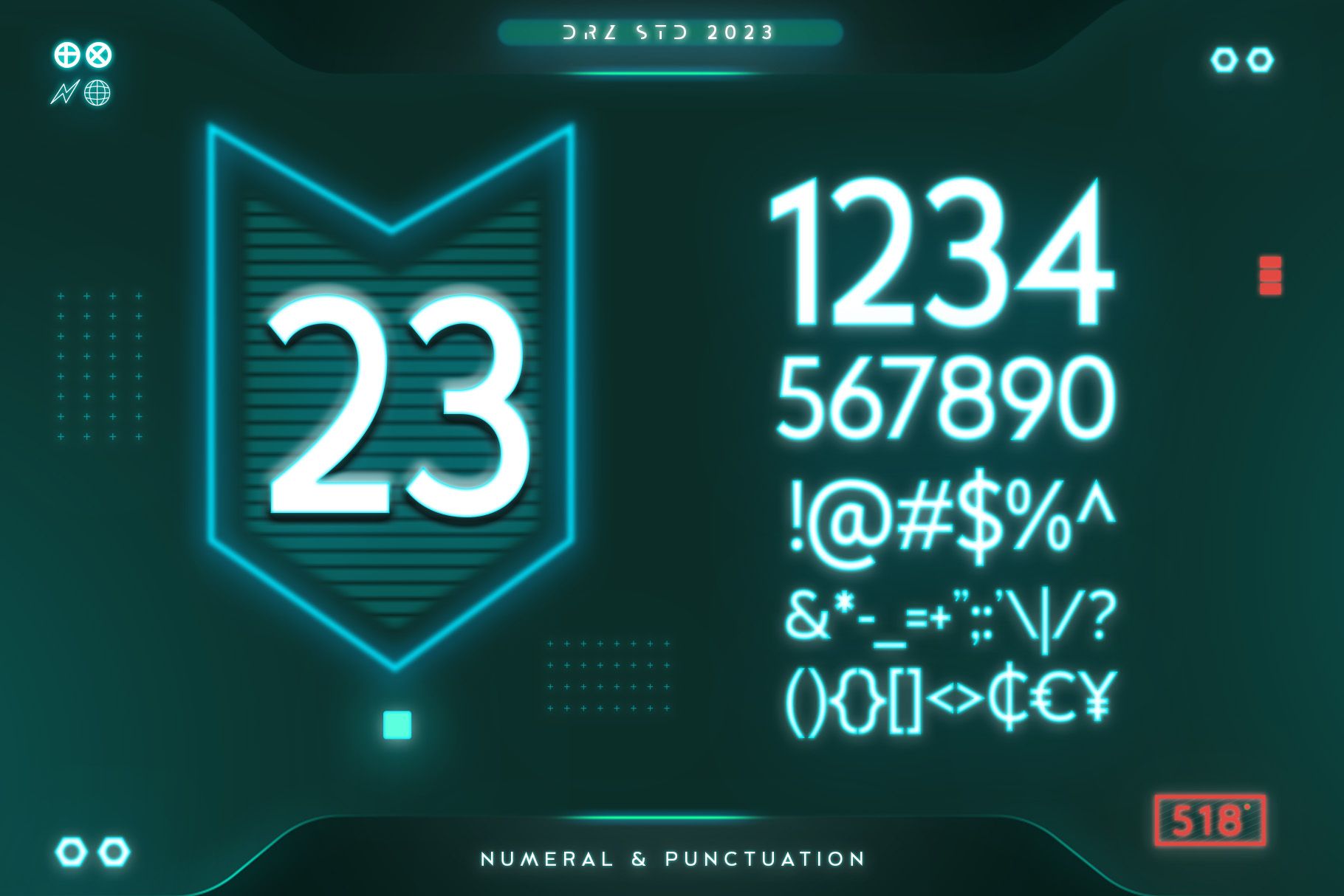
Codega – Sans Serif Disconnected Font
Codega is a display sans serif font with disconnected styling from Drizy Studio. Offering all the styles you need for classic or modern theme projects.
Codega features:
- Uppercase & Lowercase
- Punctuation & Numbers
- Multilingual Support
- Alternates
Spice up your project with this unique modern disconnected typeface!